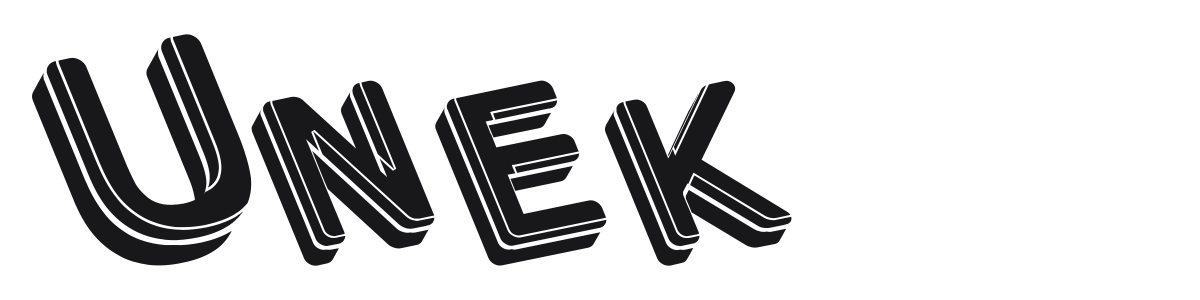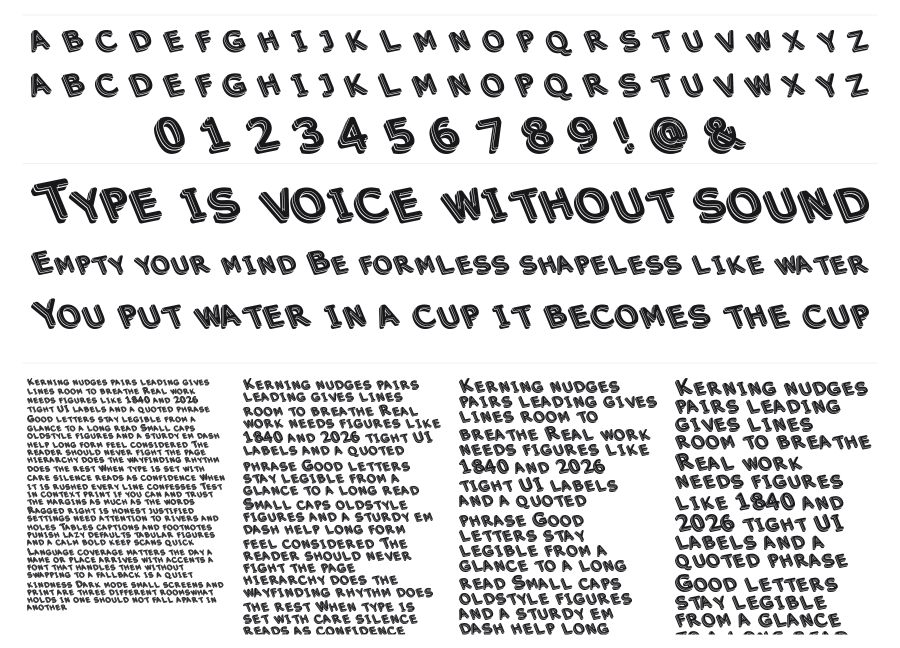
Unek
Unek is a bold retro display face with chunky rounded strokes, an inline highlight, and deep drop shadows that give every letter a hand-painted sign quality. The subtle diagonal tilt across the text adds momentum and a carnival-era charm. It works best large, where the layered dimensional detail can read clearly.